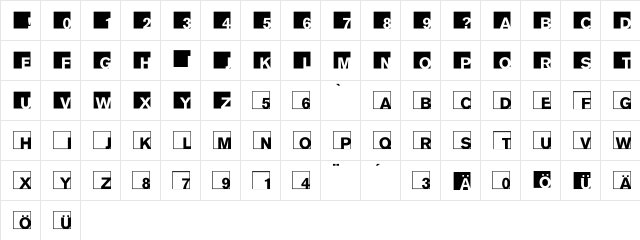
ABCLogosXYZ Regular Font Preview
ABCLogosXYZ Regular
ABCLogosXYZ Regular Font Details
Design Context for ABCLogosXYZ Typeface
ABCLogosXYZ offers clean, dependable letterforms without strong stylistic allegiance, making it a practical choice for designers who need flexibility.